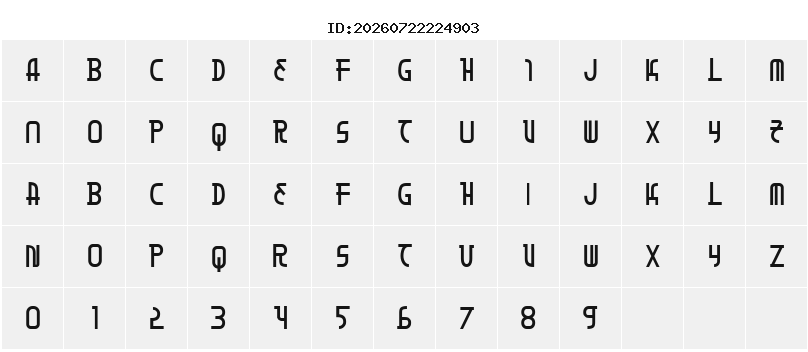
Moon Dart Bold Preview
• Font Name: Moon Dart Bold
• Full Font Name: Moon Dart Bold
About Moon Dart Bold.ttf
Moon Dart Bold.ttf is a modern, elegant sans-serif font designed for ultimate readability and visual harmony. Perfect for branding, headlines, web design, and print materials.